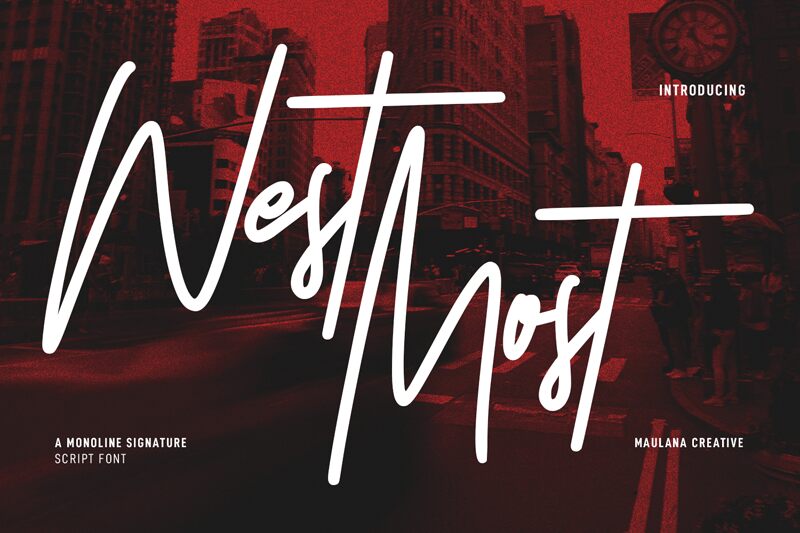
West Most Free Regular
West Most, a delightful handwritten font by Maulana Creative, brings a touch of elegance to any project. Its light weight and condensed width make it perfect for minimalist designs that demand attention without being too bold. This versatile typeface is ideal for everything from wedding invitations and greeting cards to modern logos and branding materials. The distinctive curves and flourishes of West Most add a personal touch to your design while maintaining legibility at any size. Let this charming semi-bold font transform your creative vision into an unforgettable masterpiece.